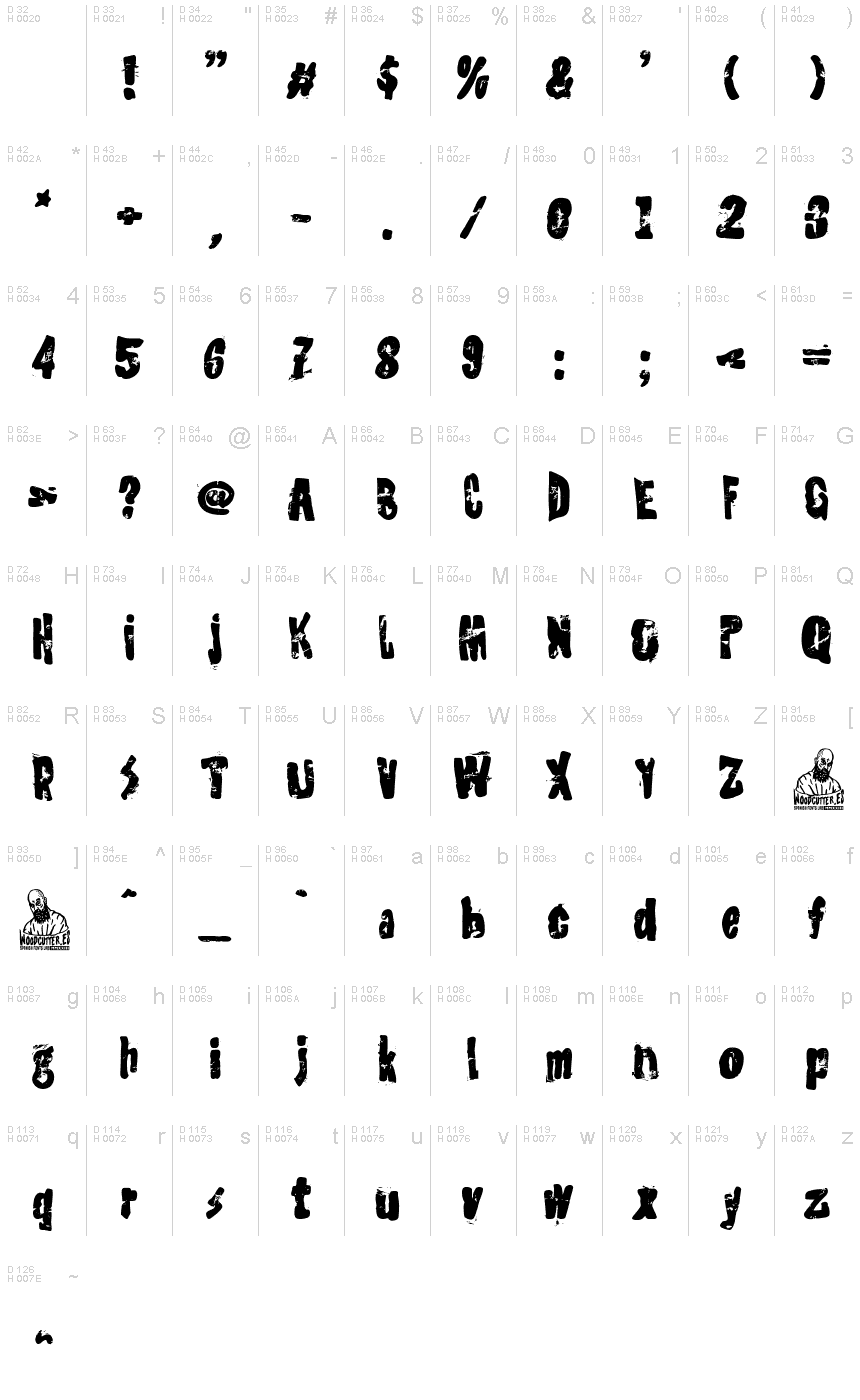
Social Crisis
Social Crisis is a bold and condensed display font by Woodcutter, perfect for creating striking and attention-grabbing designs. With its distorted and eroded style, this font is ideal for projects that aim to convey a sense of urgency, chaos, or rebellion.
Use it to add a gritty edge to album covers, movie posters, or street art campaigns. Its bold weight and condensed width make it an excellent choice for headlines and titles that demand immediate impact. Unleash the power of Social Crisis to captivate your audience with its raw and edgy aesthetics.